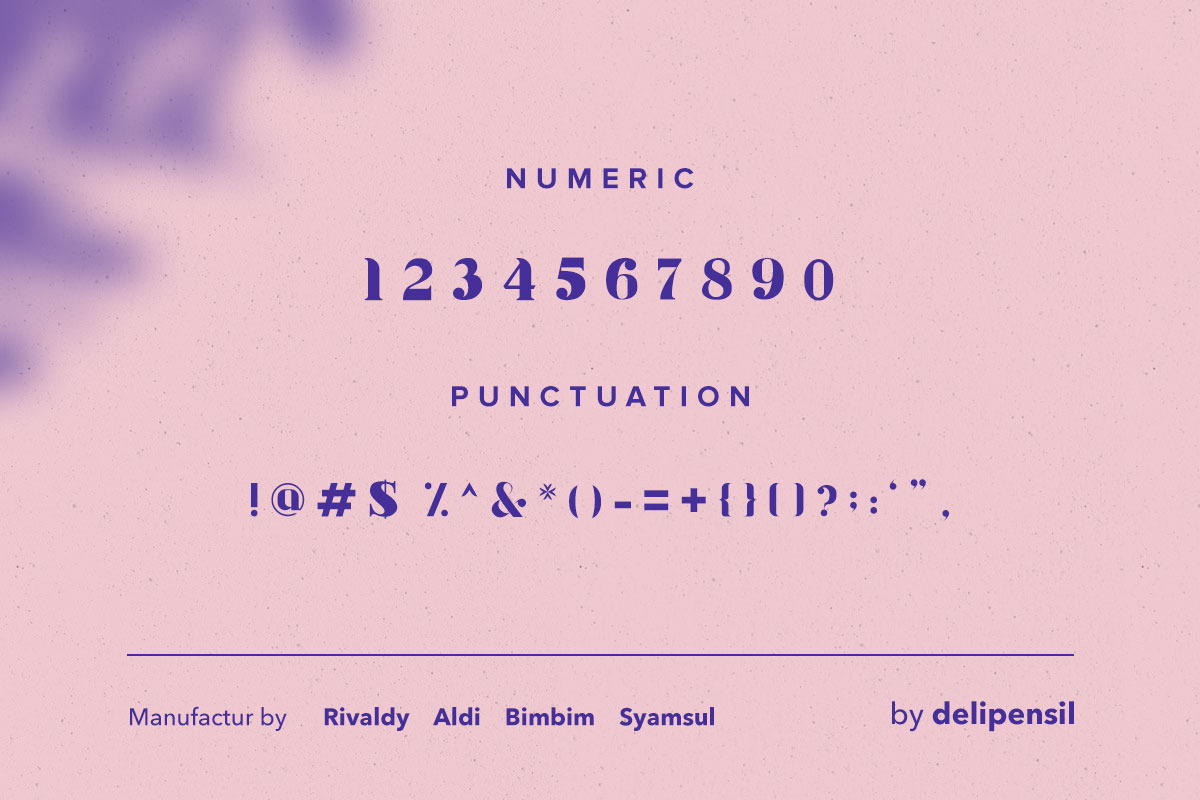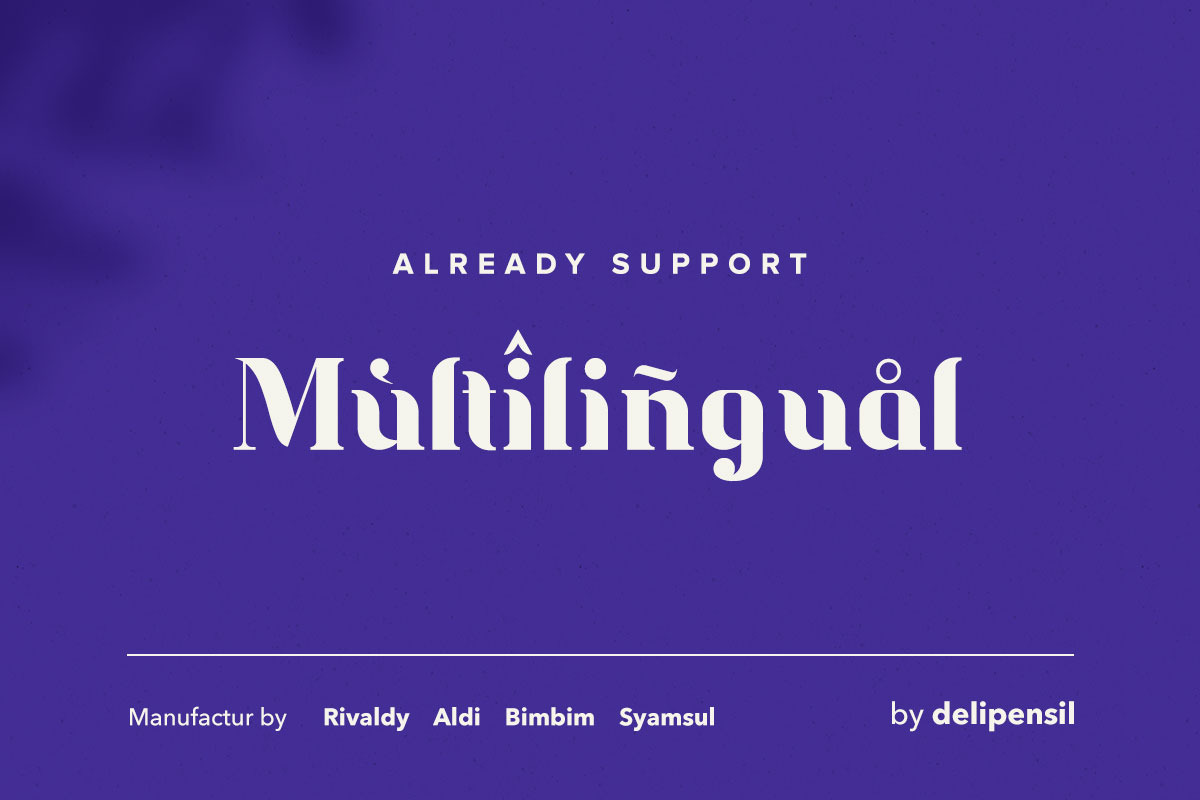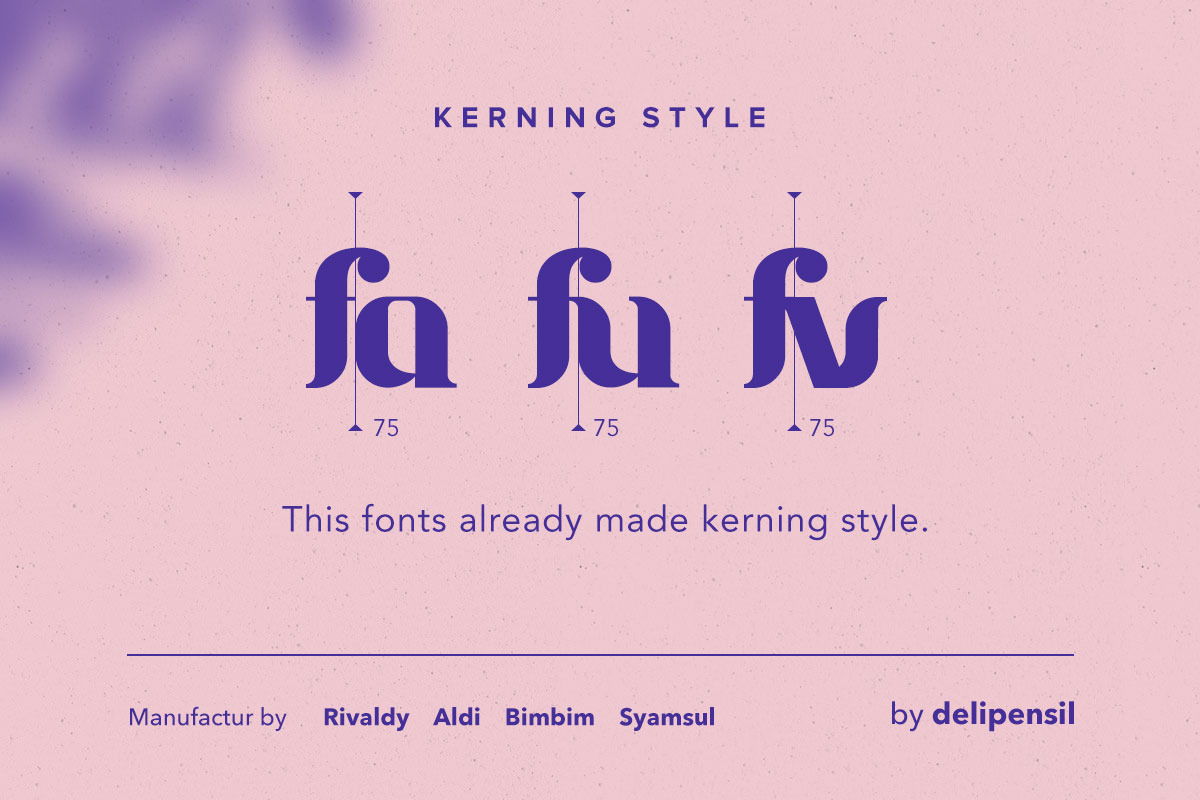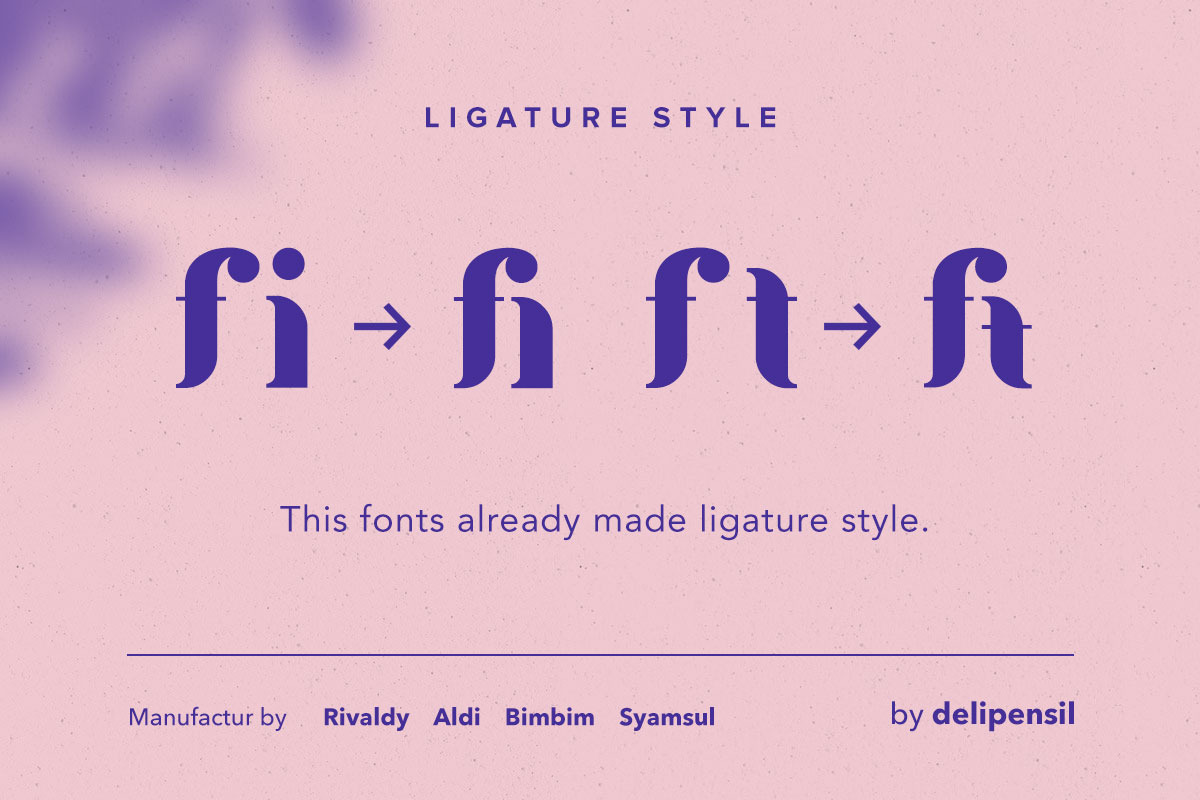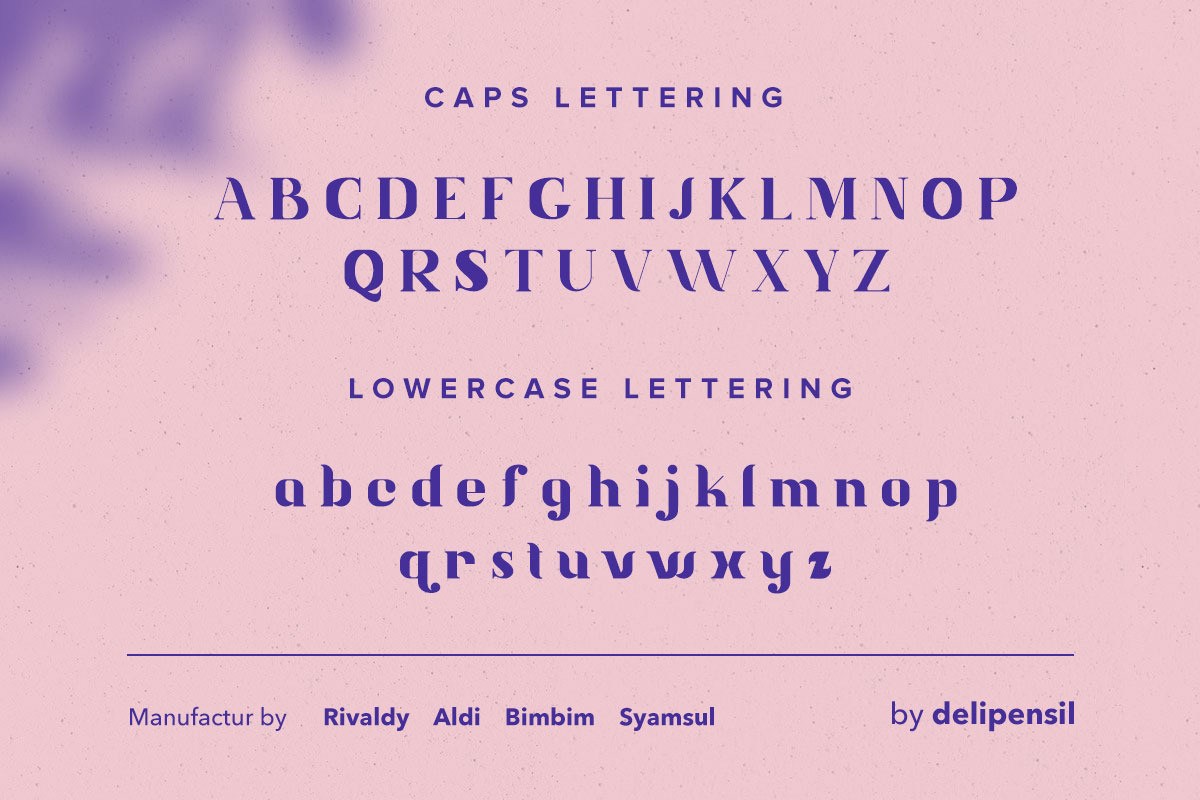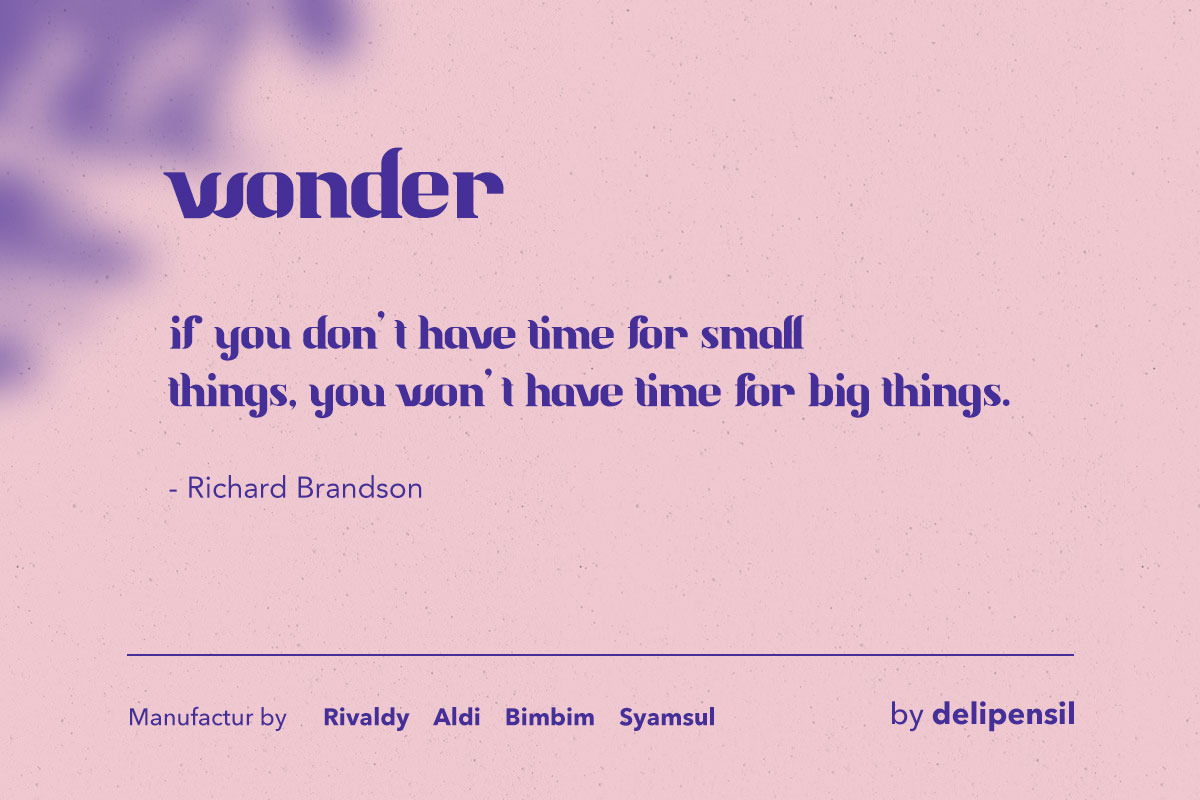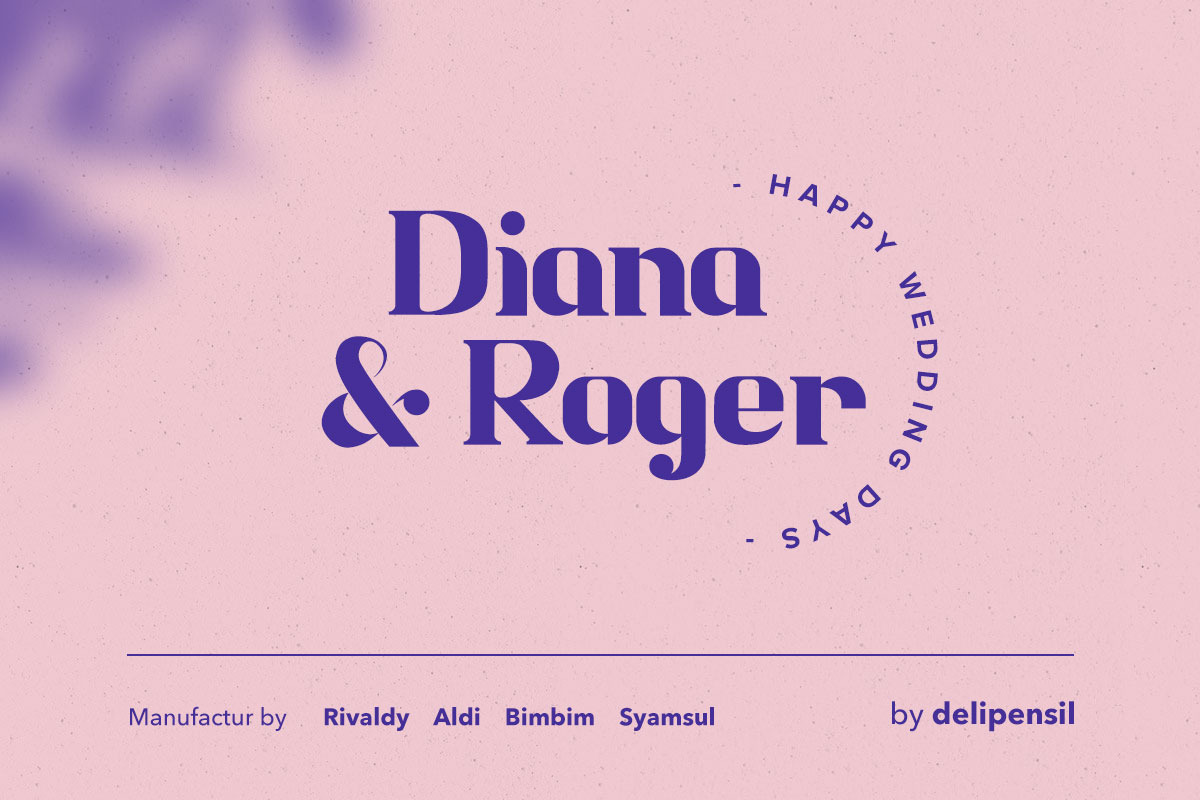
Jetfast Medium Font
Bismillah, Introduction Everyone Jetfast Medium Font is an bold, elegant, modern, clean, classic, and beautiful font. Use it for headlines, paragraphs, cover photos, web design, logo, and everything with the elegant touch you can get it now :)
Jetfast-Medium Font Style
Jetfast-Medium Numeral & Punctuation
Jetfast-Medium Language Style
Jetfast-Medium Kerning Style
Jetfast-Medium Ligature Style
Why Jetfast Medium Font is worth a look
Jetfast Medium Font by delipensil fits naturally into Branding, posters, packaging, typography.